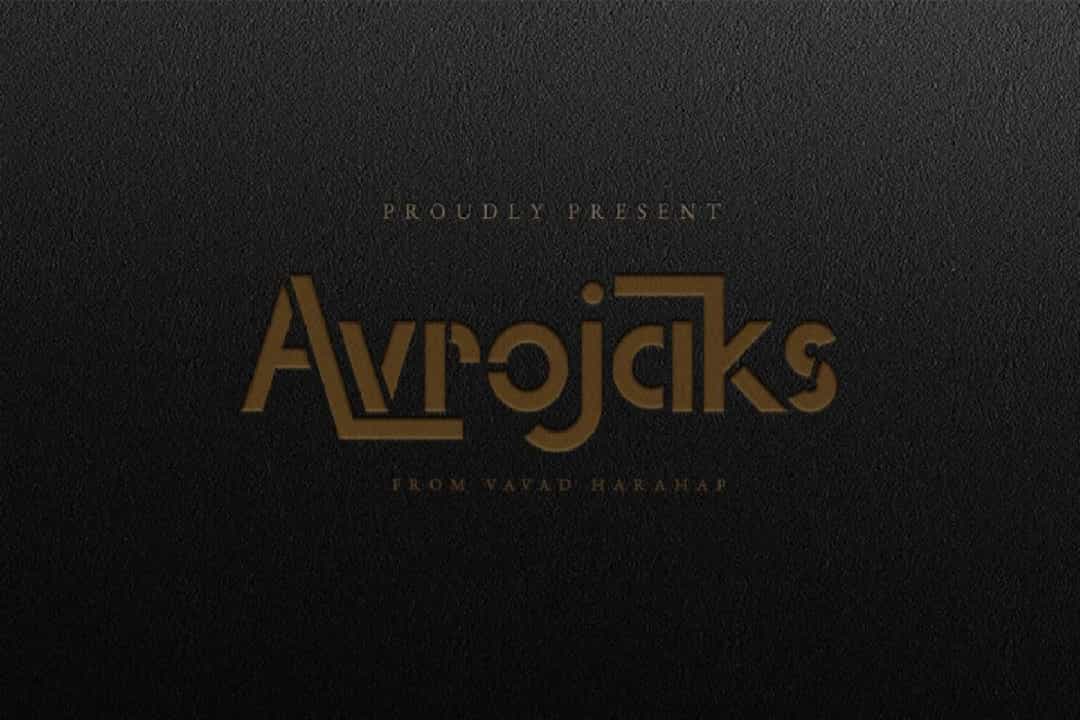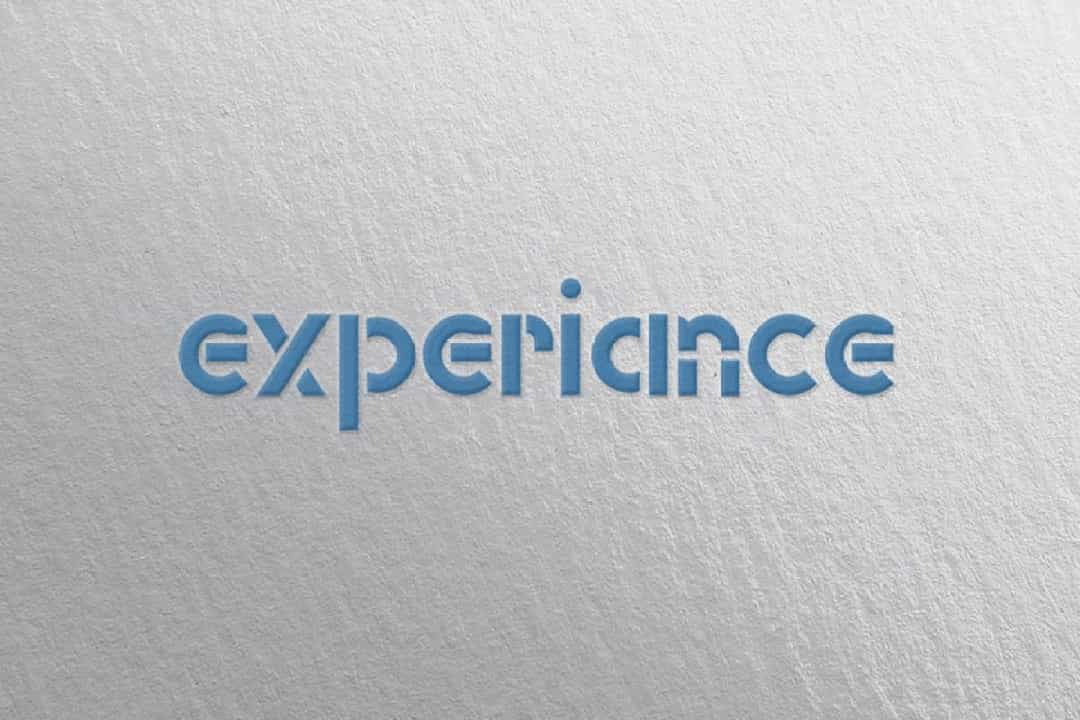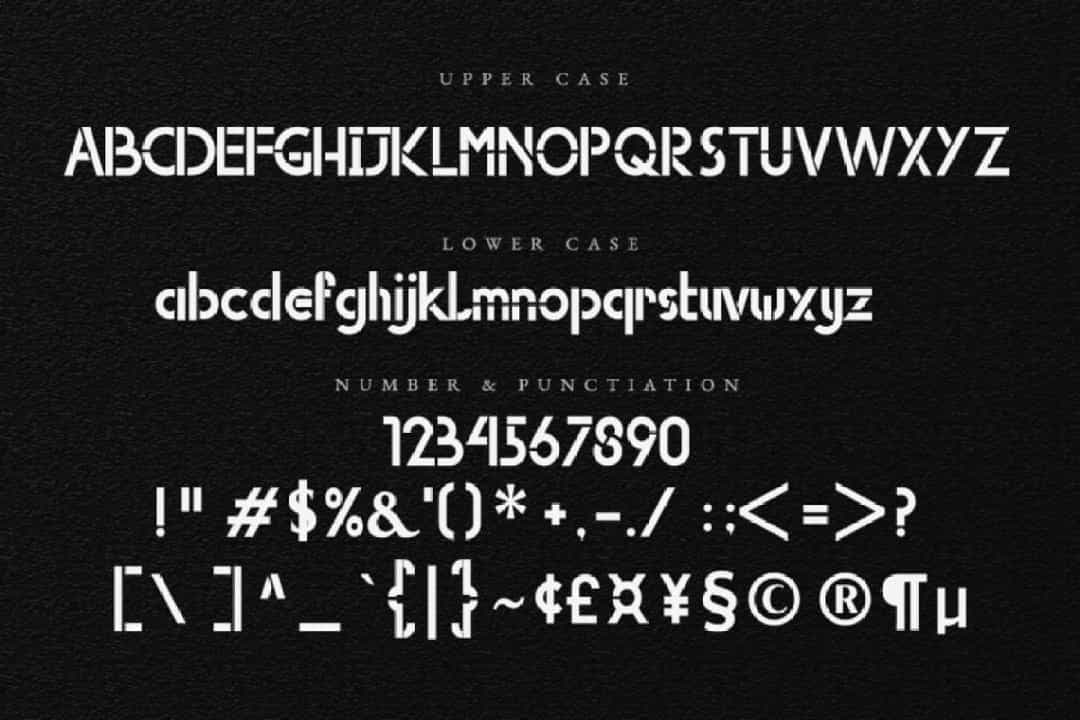
It is a display font that is a clear and very distinctive typeface in appearance. Most appropriate for headlines, where you want to grasp the reader’s attention and for the formal styles. This font family consists of a large number of shapes and all their modifications; you can use this font in your works and see how it enlivens them!